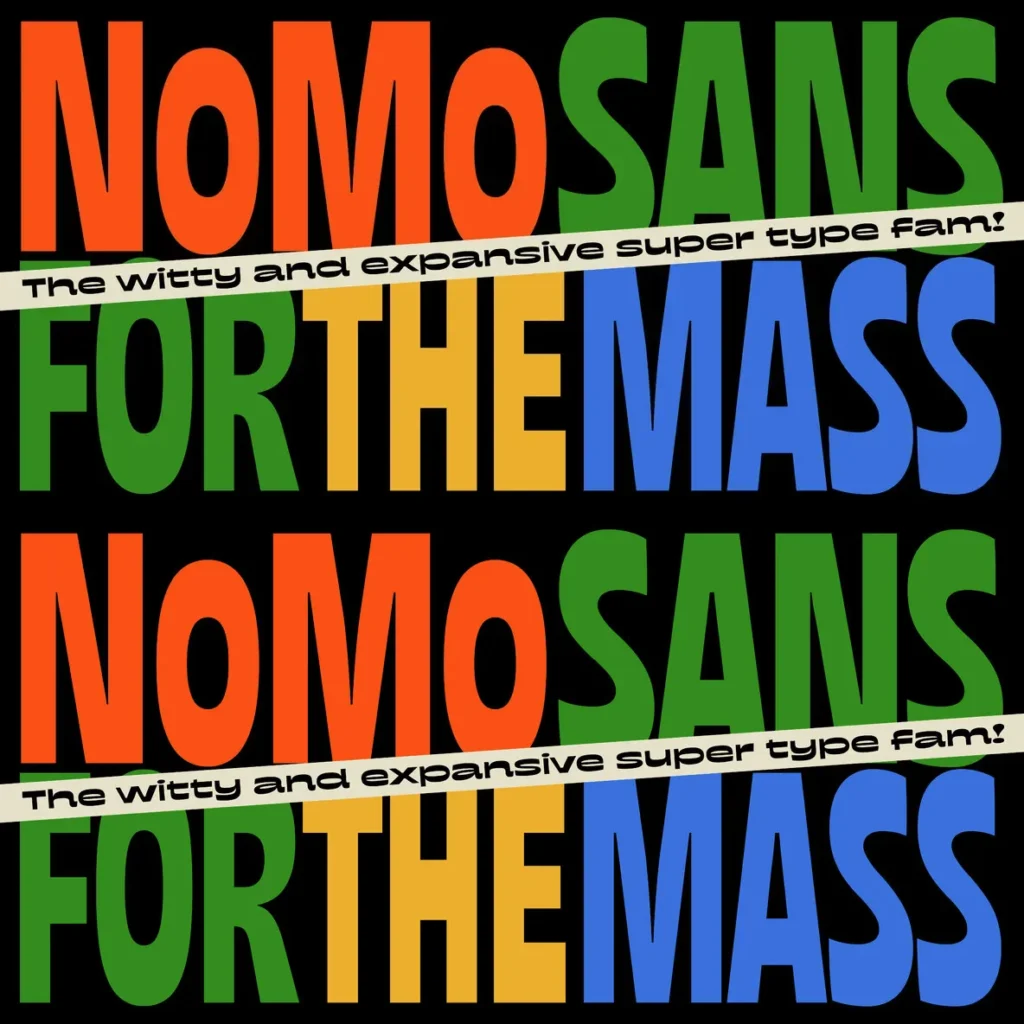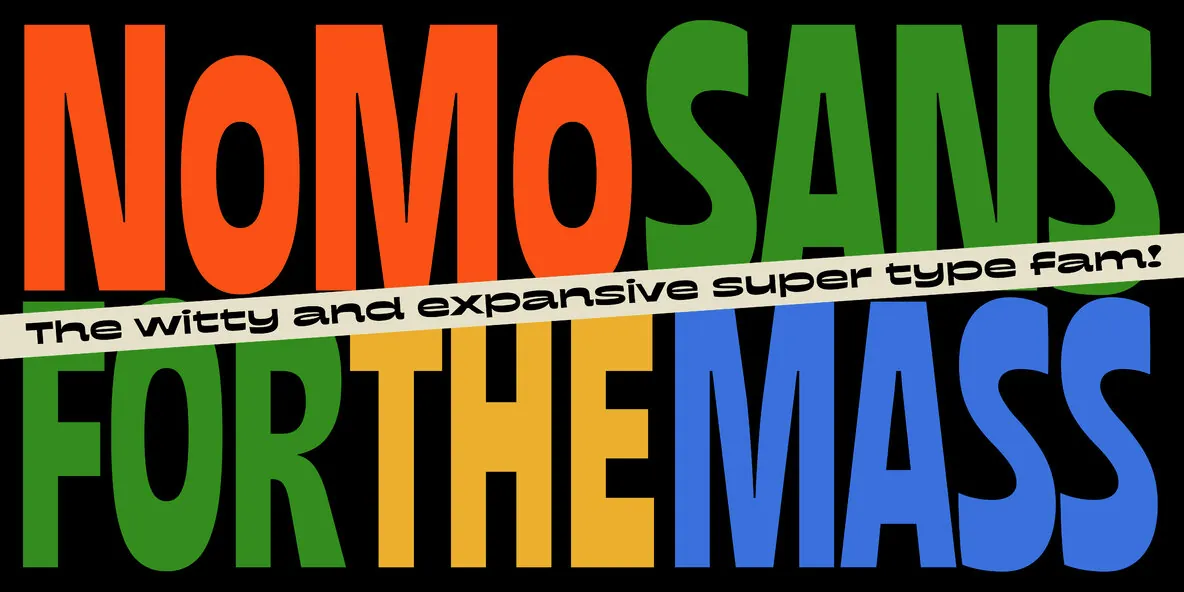
NoMo Sans Font
wNoMo Sans — A Groovy System with Attitude
NoMo Sans arrives with a witty, expansive voice and a clear taste for the irreverent. It began years ago as an exploration of the mischievous, the improvised, and the unexpected. Even then, its playful personality was obvious—full of attitude and happy to break the mould. At first, it stayed in a simple range: a touch condensed here, a little expanded there. Later came the remix. The question was straightforward: what if it could swing harder? The answer was to add extreme masters and push the system into suuuuper wide—and even more suuuuper condensed—territory. That required rebuilding the entire system, and it proved complex, but worth it. NoMo Sans is a one-axis variable type family with a strong but enjoyable inverted contrast.
Expect a type system built on soft curves and smooth terminals, then punctuated by quirky shapes that step out of line and improvise. Its groovy letterforms bring rhythm and musicality, giving text a wordmark-like presence, while wide language support lets you set it in almost any Latin speech. From Ultra Expanded to Ultra Condensed (a 1:22 ratio), it covers serious typographic ground for deep layout solos or tight ensembles. Whether you keep it restrained or go full big band, NoMo Sans stays ready to swing.